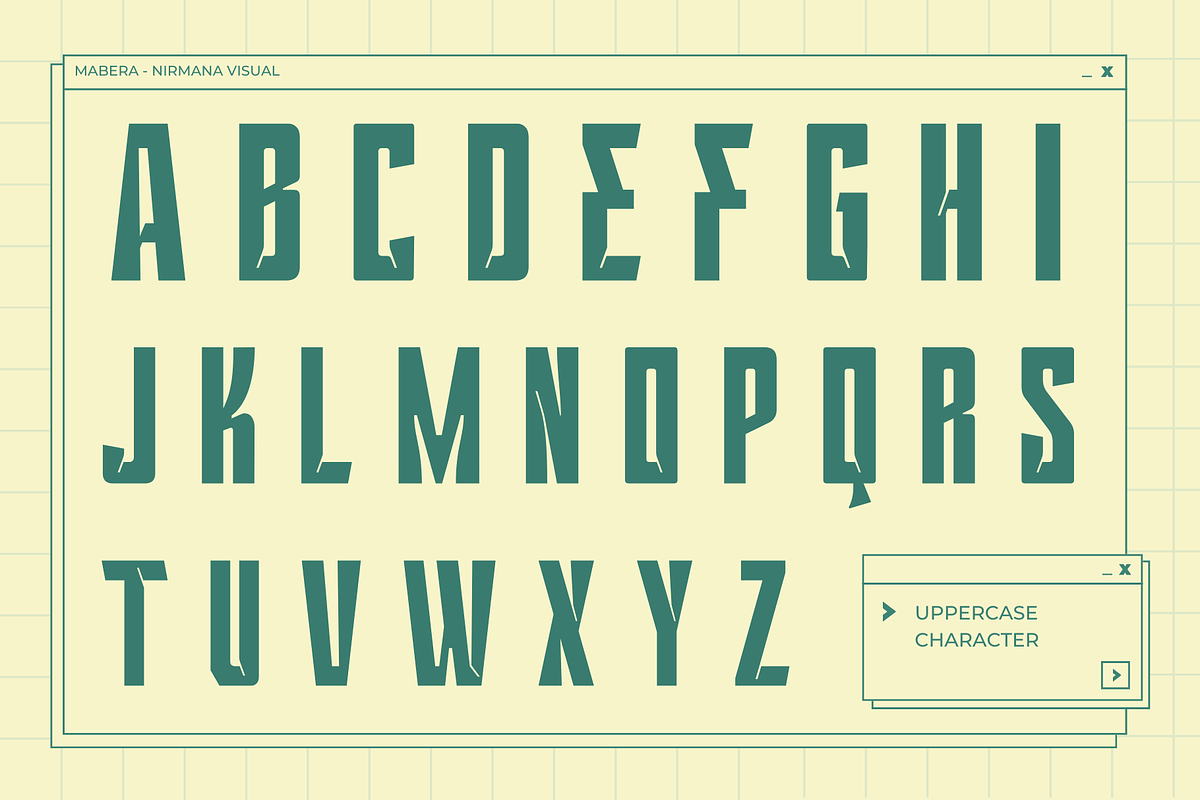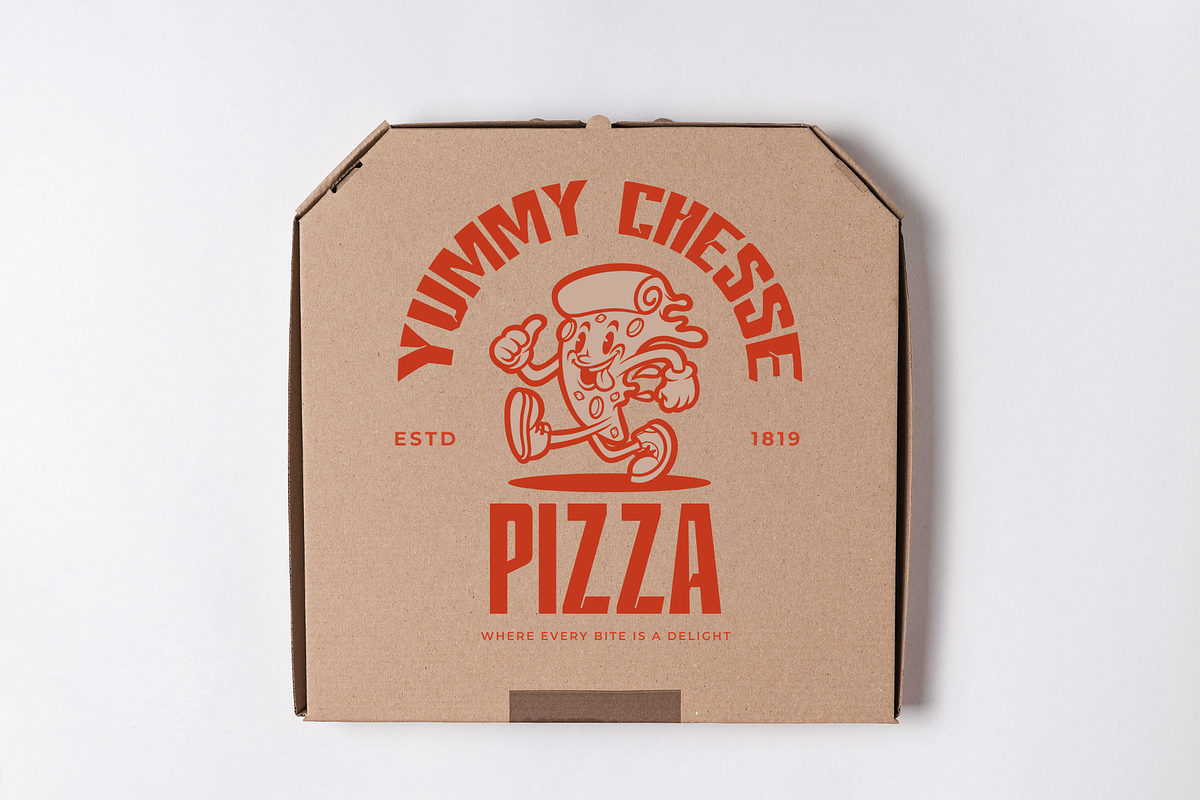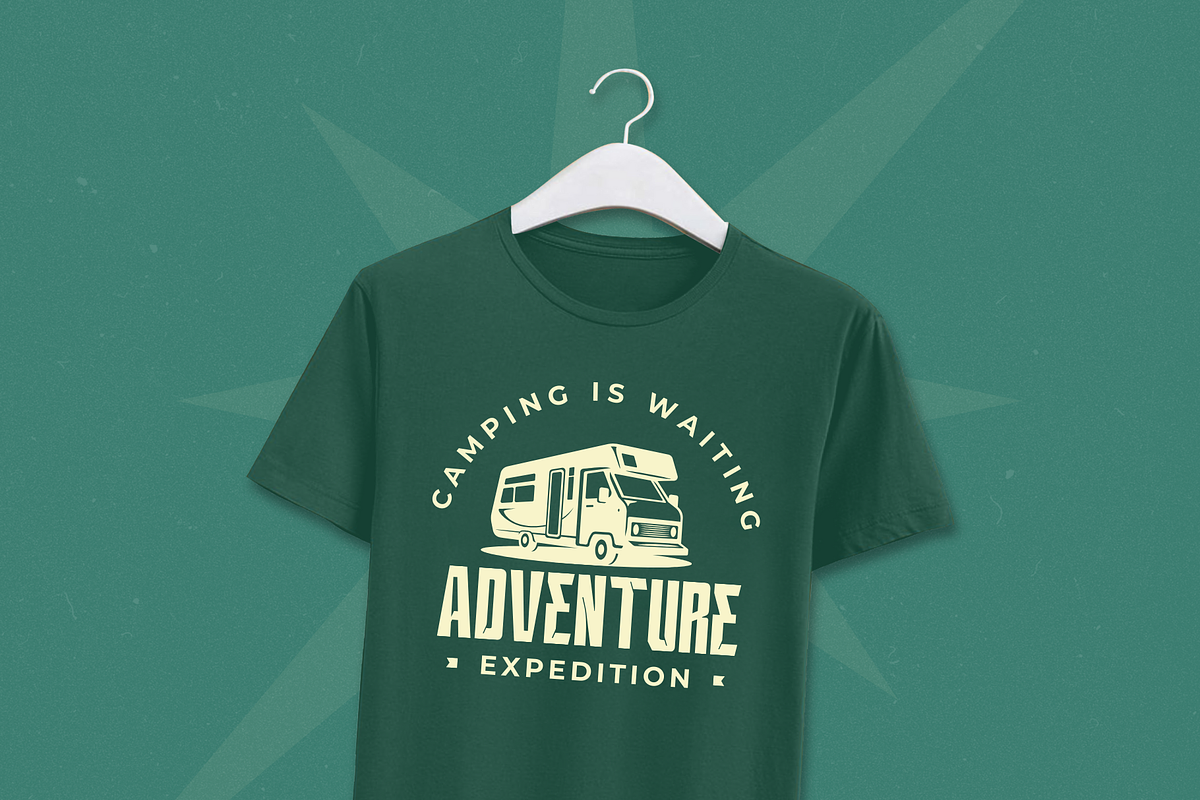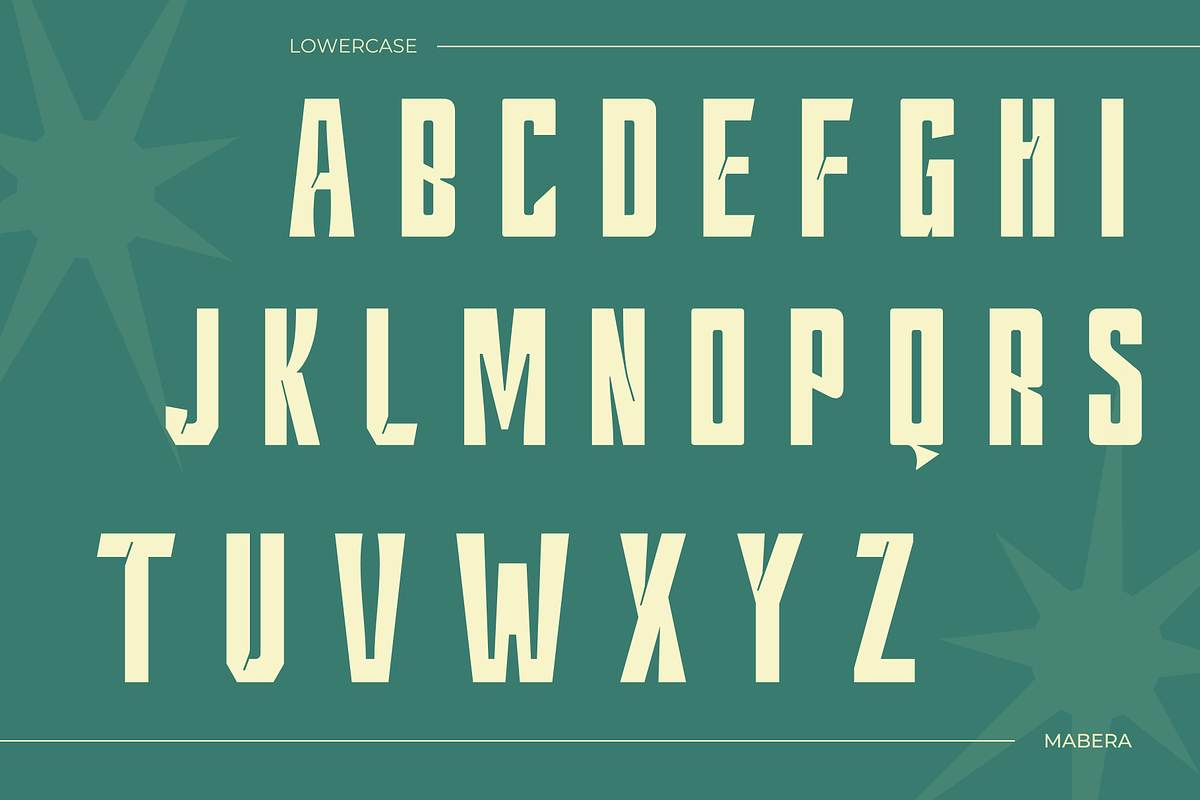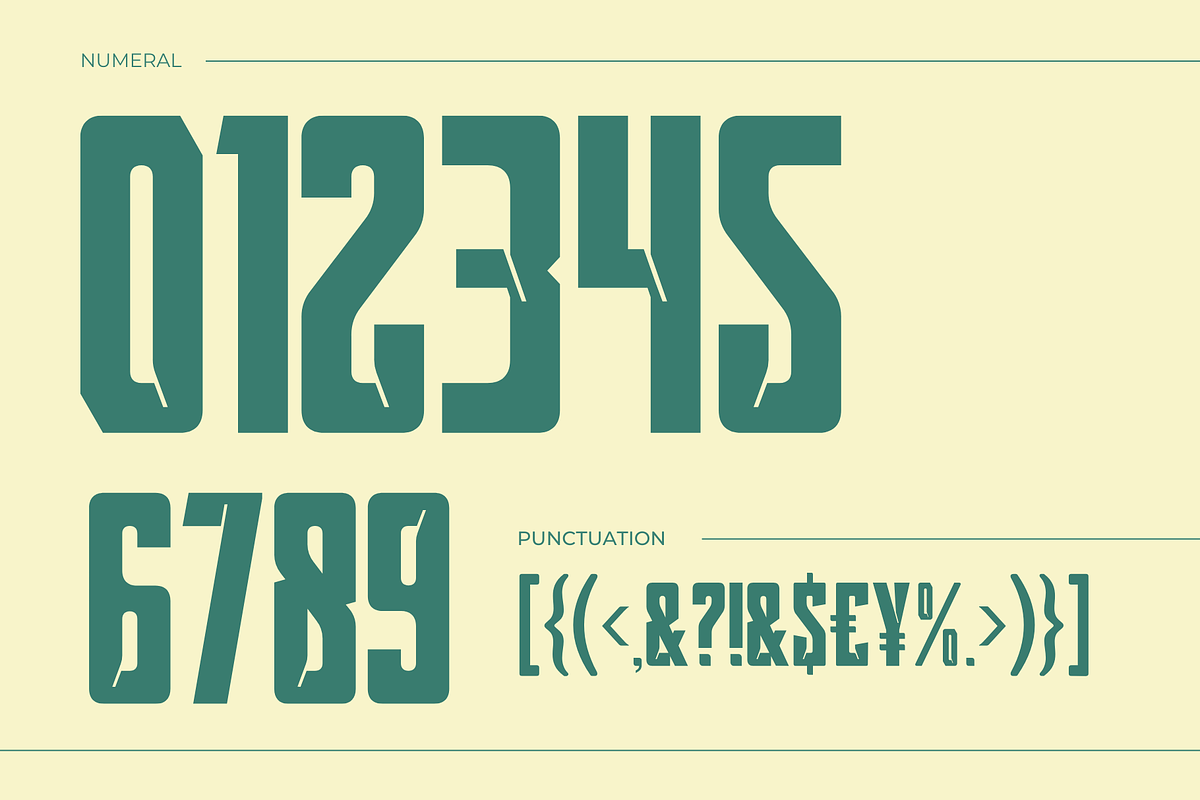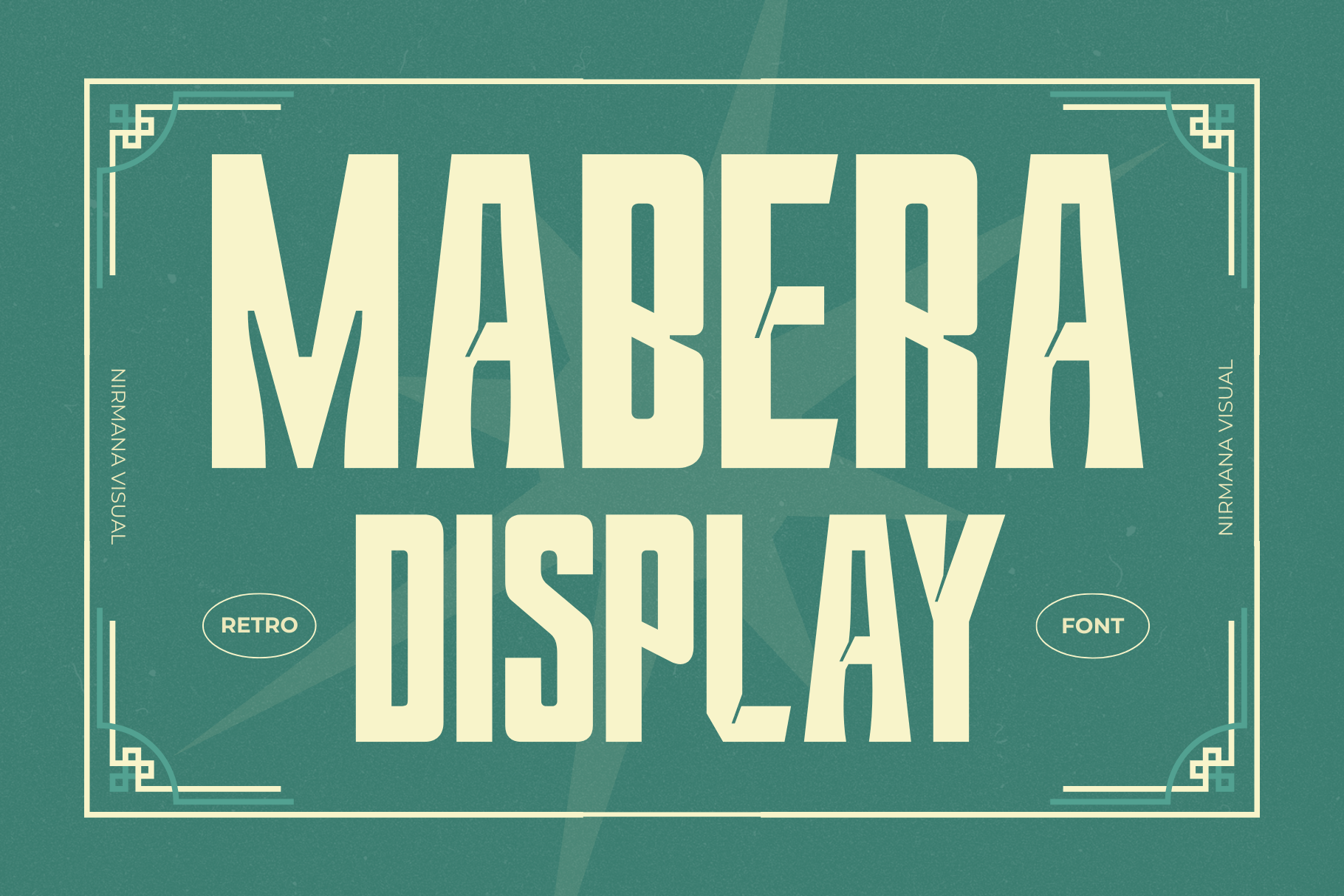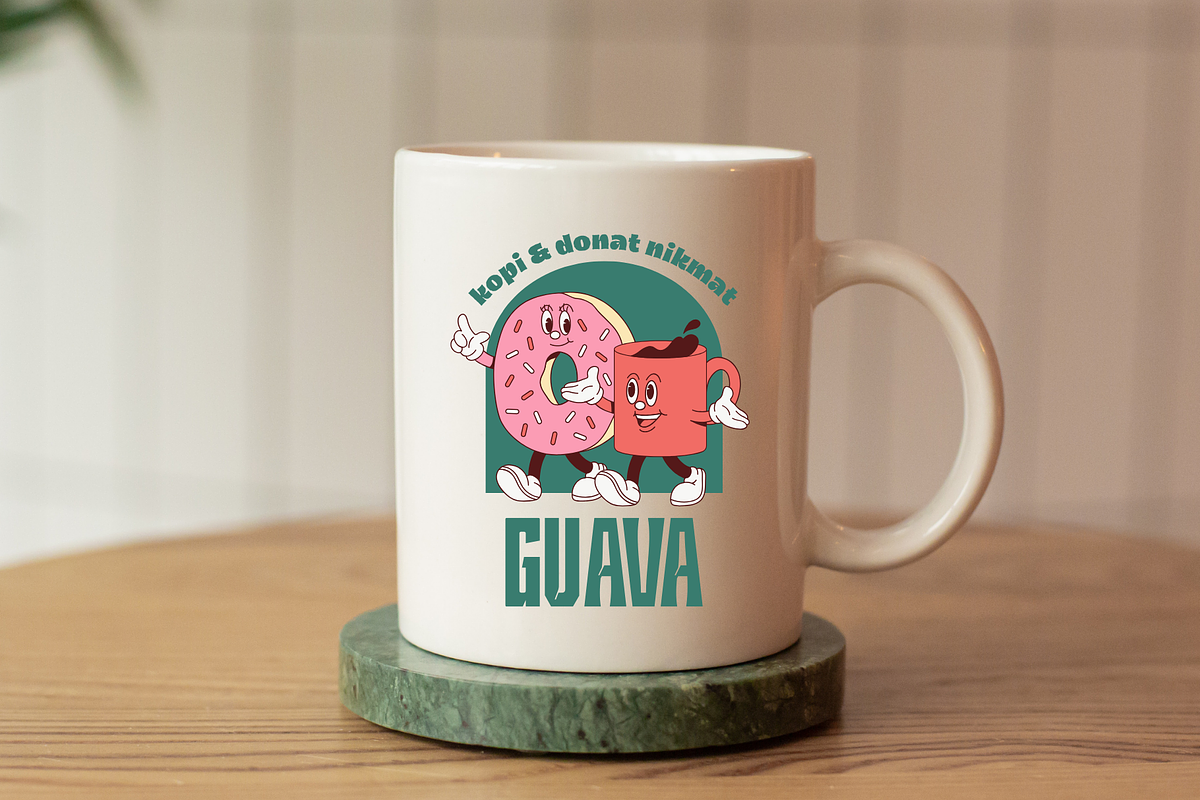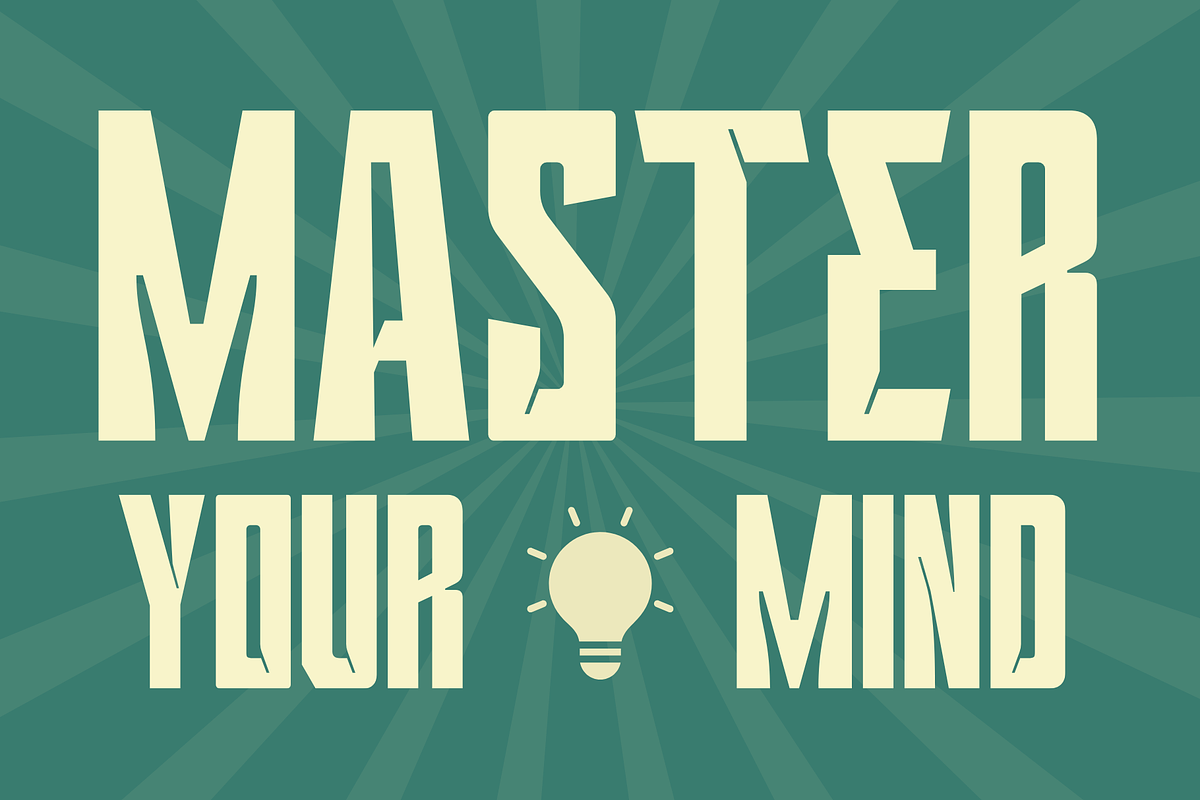
Mabera - Branding Logo Font
Mabera is a sans-serif display font that blends playful charm with retro nostalgia. Its bold and quirky letterforms exude a vibrant personality, making it perfect for eye-catching designs. Inspired by mid-century aesthetics, Mabera brings a touch of vintage flair to modern creativity. Ideal for logos, posters, and branding, it stands out with a unique combination of fun and sophistication.